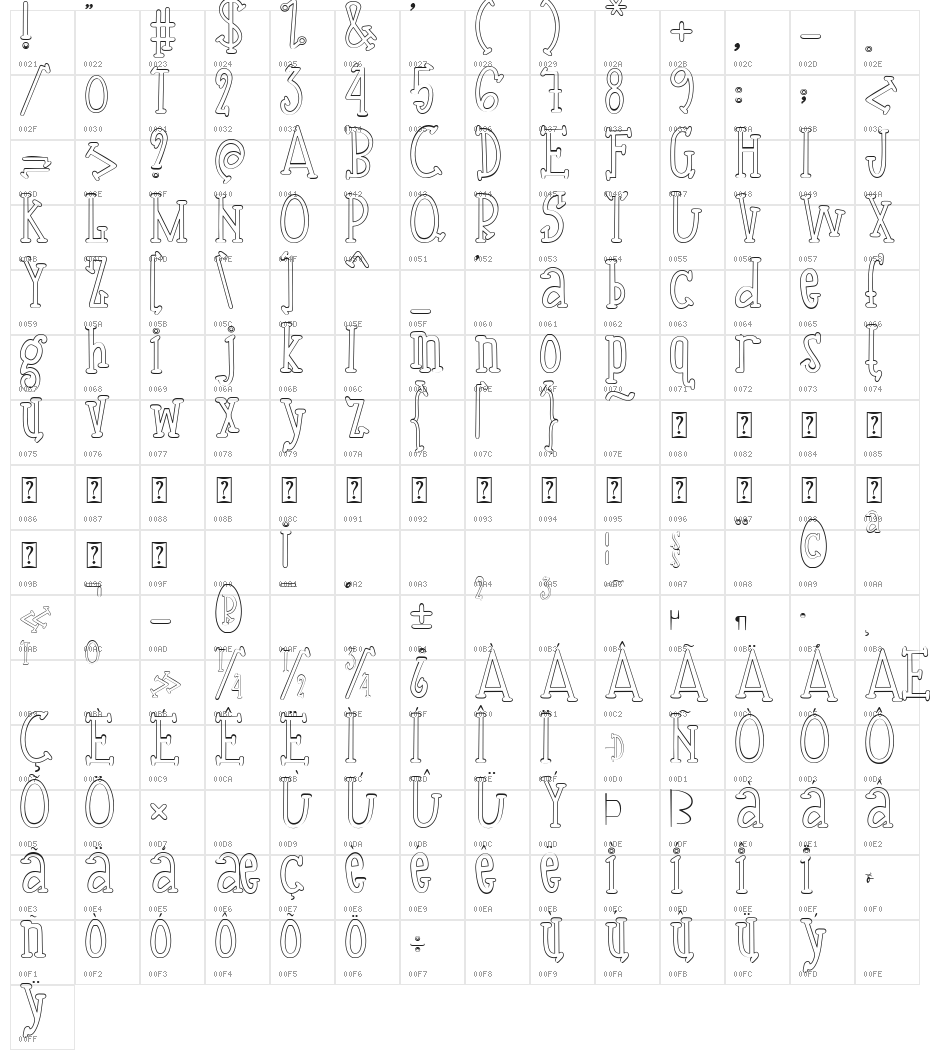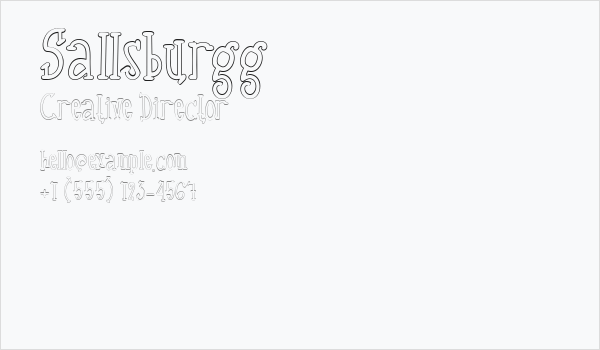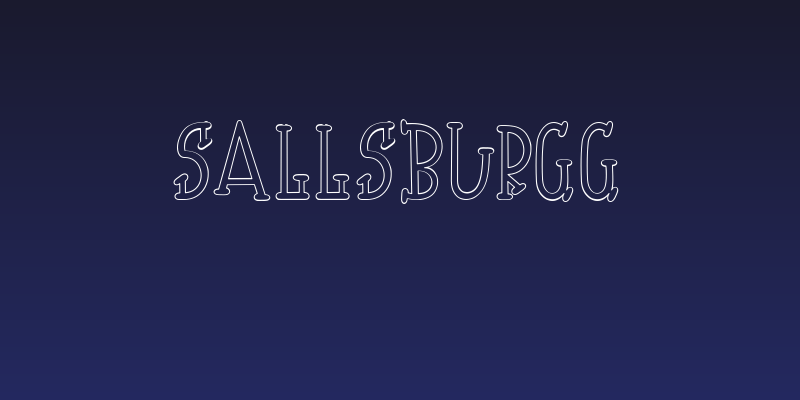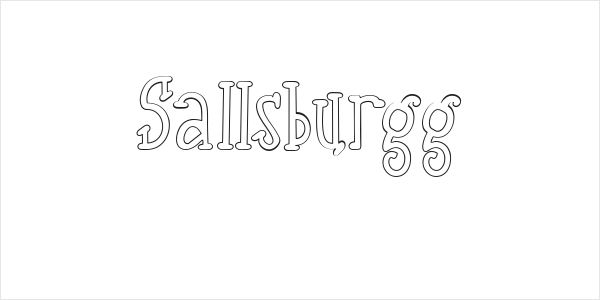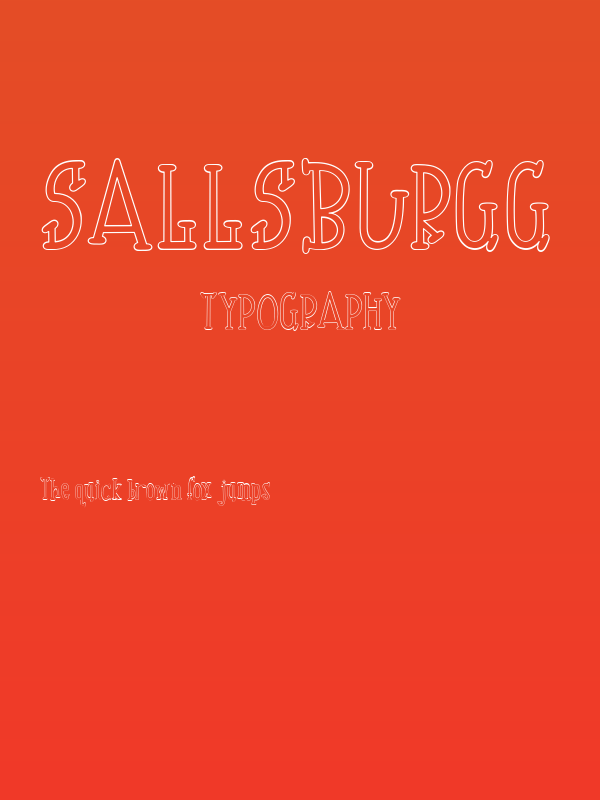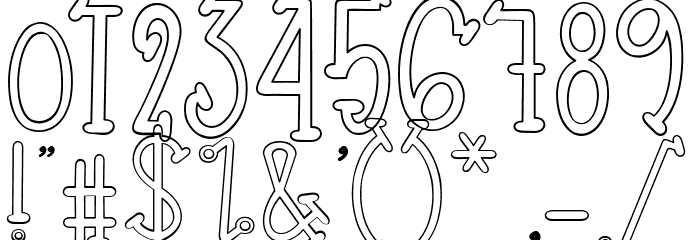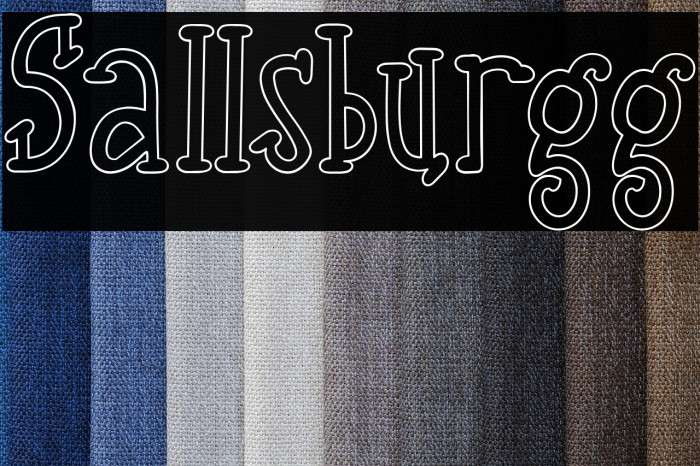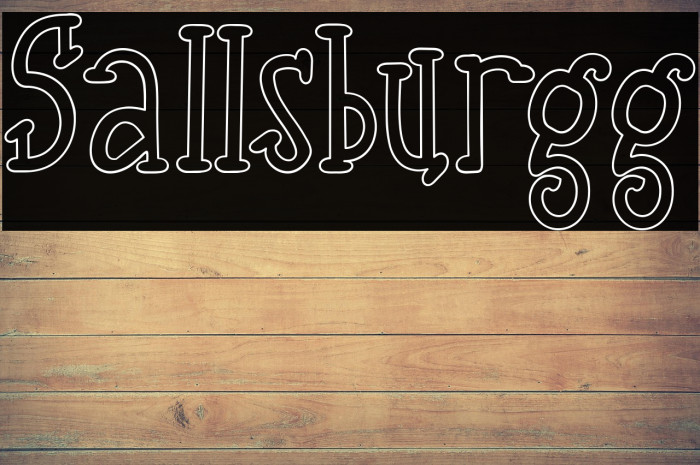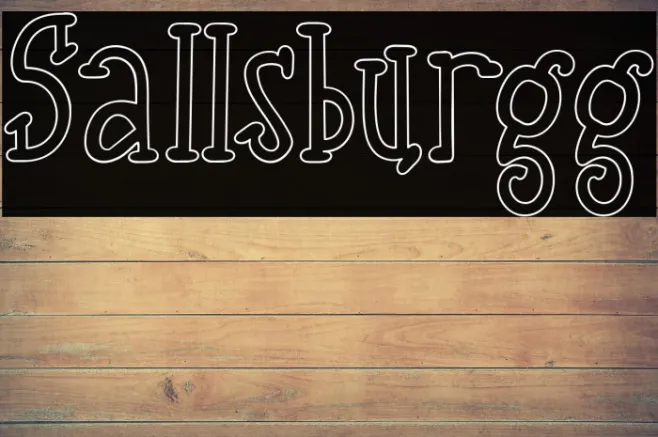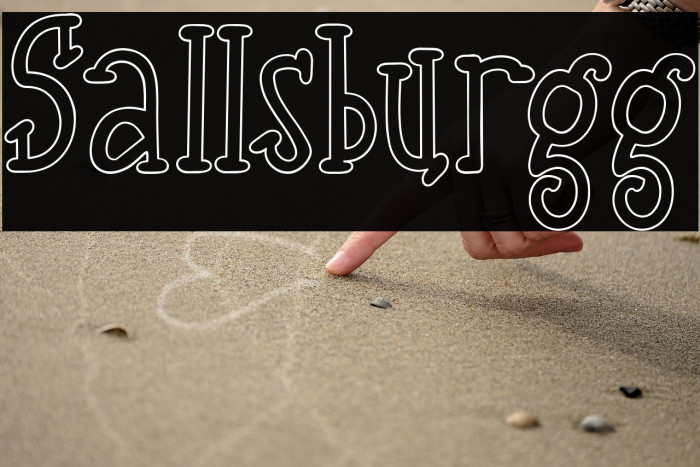
Sallsburgg Font
Sallsburgg Description
This font features a playful and whimsical design with a hand-drawn aesthetic. The characters are outlined, giving them a unique and artistic appearance. The uppercase letters are tall and slightly narrow, while the lowercase letters maintain a consistent style with a touch of flair in their curves and loops. The numerals are bold and distinct, matching the overall quirky style of the alphabet. Special characters are creatively integrated, maintaining the font's cohesive look. This font is ideal for projects that require a fun and informal touch, such as children's books, creative posters, or playful branding.
| Overall Style | Whimsical, Artistic |
| Proposed Projects | Children's books, creative posters, playful branding, artistic invitations. |